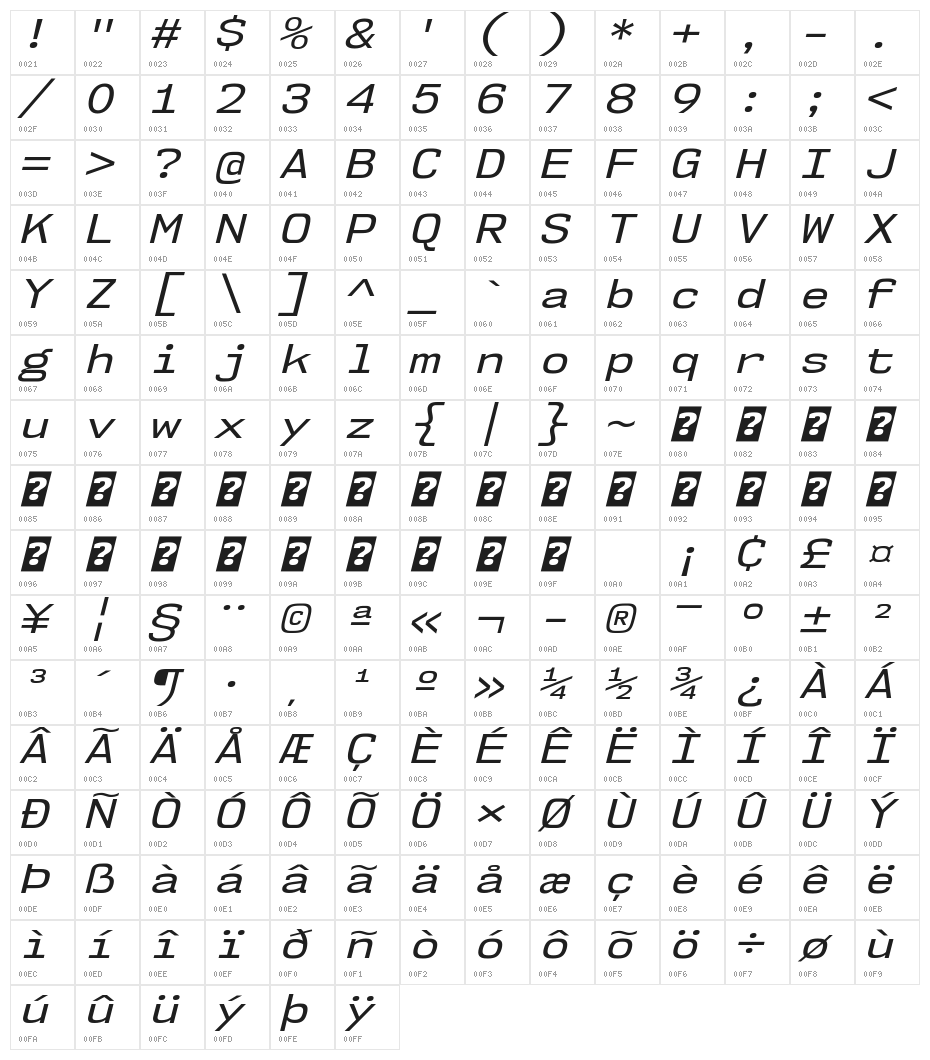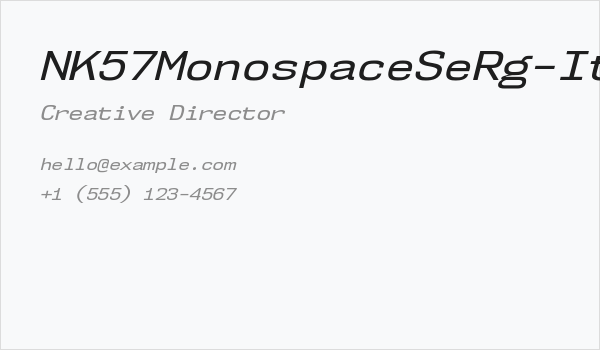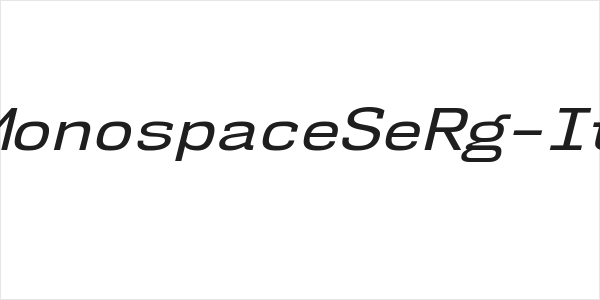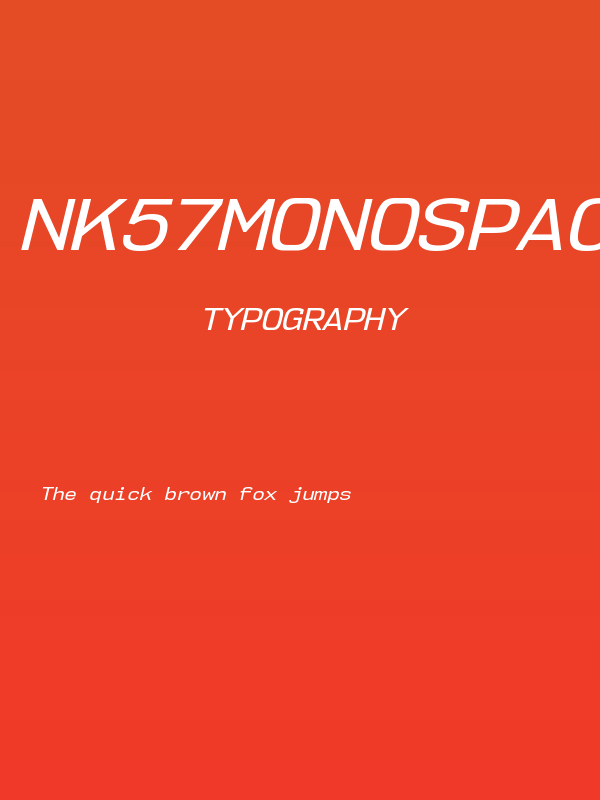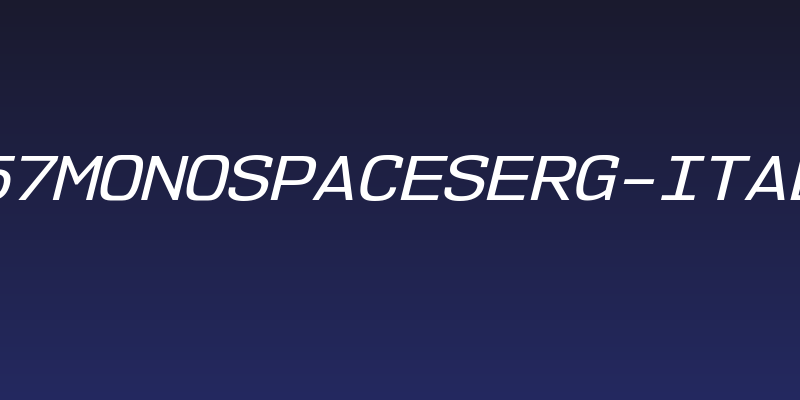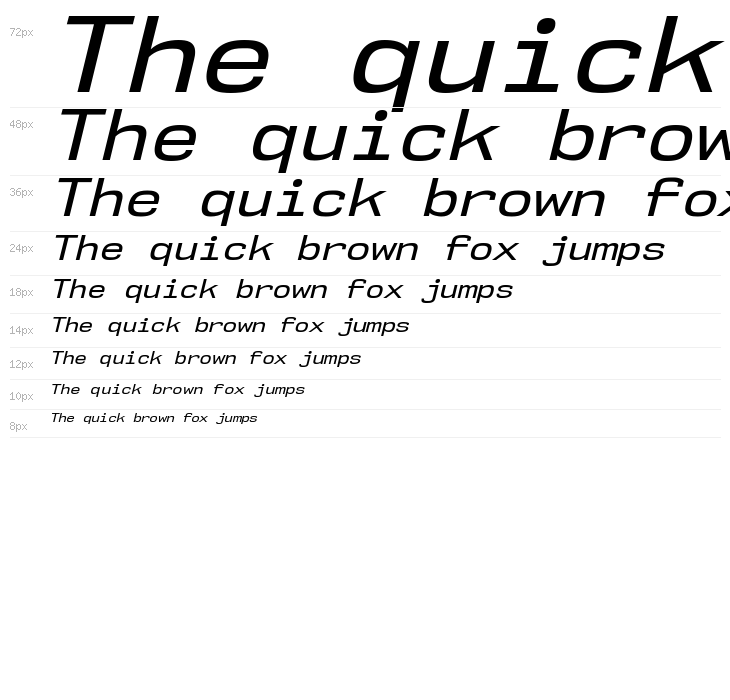
NK57MonospaceSeRg-Italic Font
NK57MonospaceSeRg-Italic Description
This typeface is a monospaced font with a sleek and modern design. Each character is evenly spaced, providing a uniform and clean appearance. The italic style adds a dynamic and forward-leaning aspect, making it suitable for technical and creative applications. The characters are well-defined with a slight slant, offering a contemporary look while maintaining readability. The font includes a full set of uppercase and lowercase letters, numbers, and a variety of special characters, making it versatile for various uses.
| Use Case | Coding, Technical documents, Modern design |
| Proposed Projects | Ideal for coding environments, technical documents, and modern design projects requiring a clean and structured appearance. |